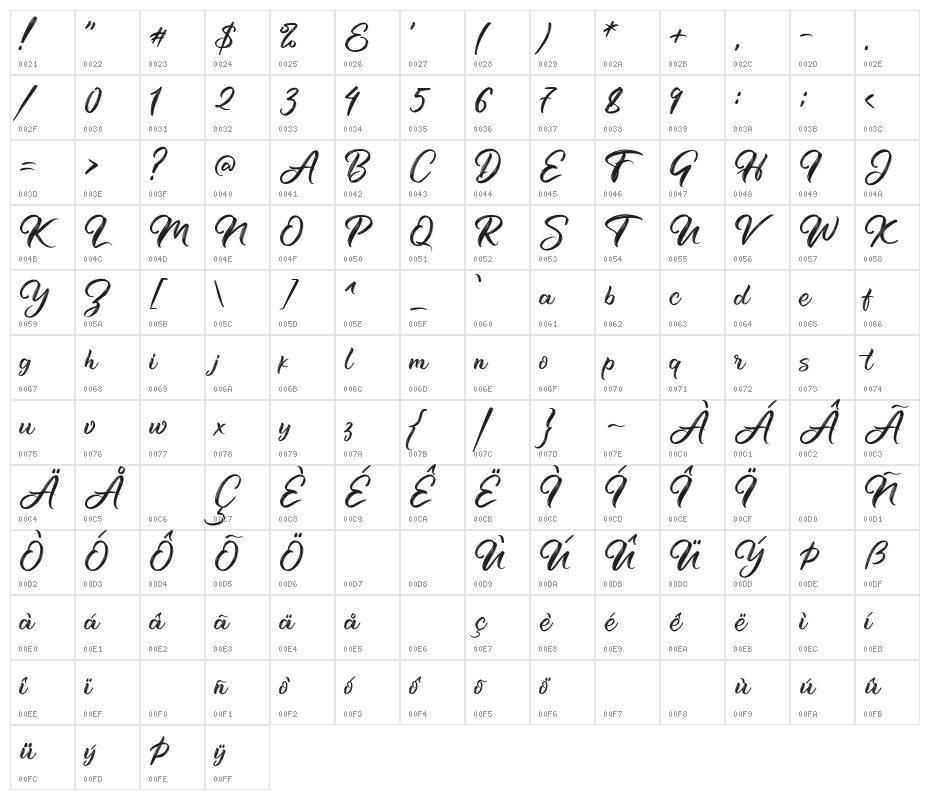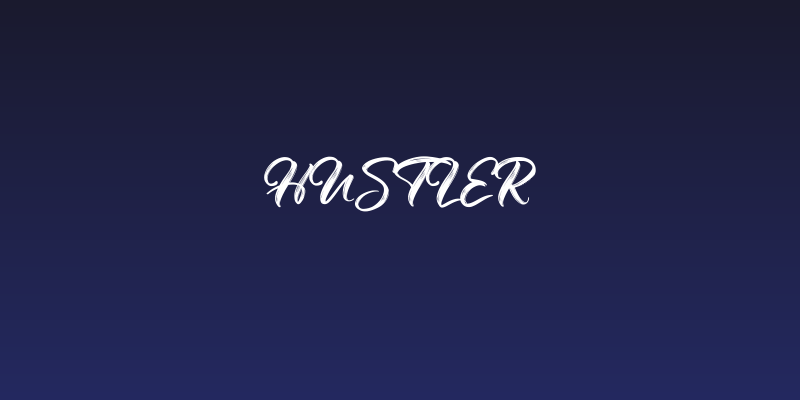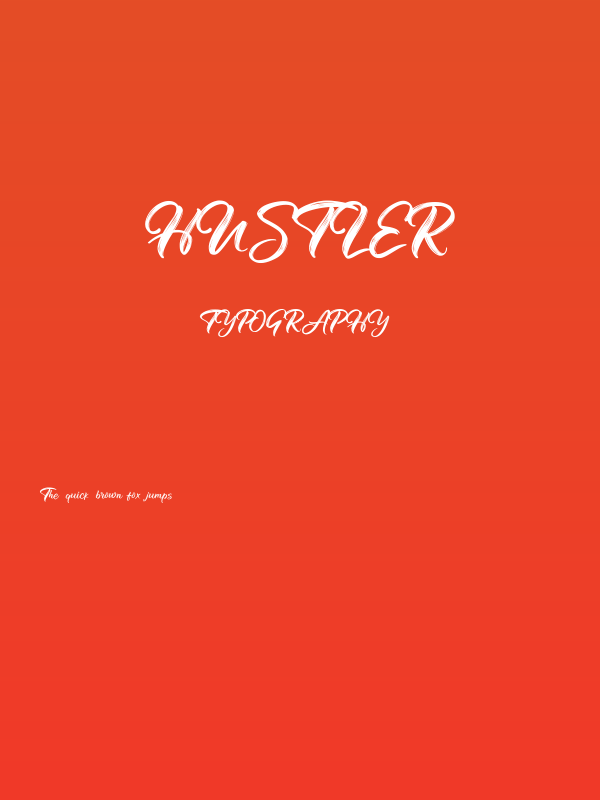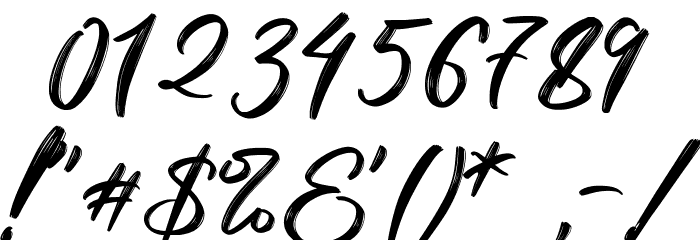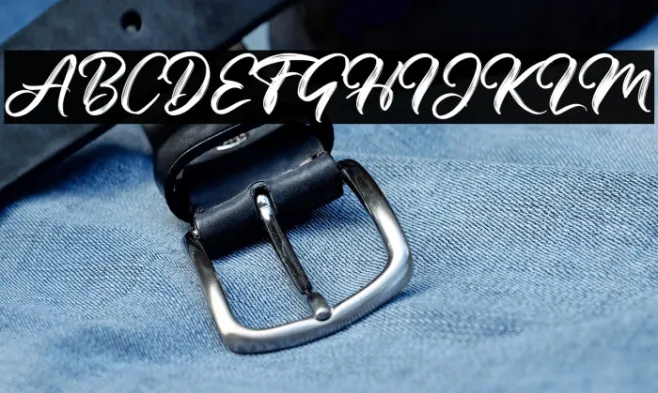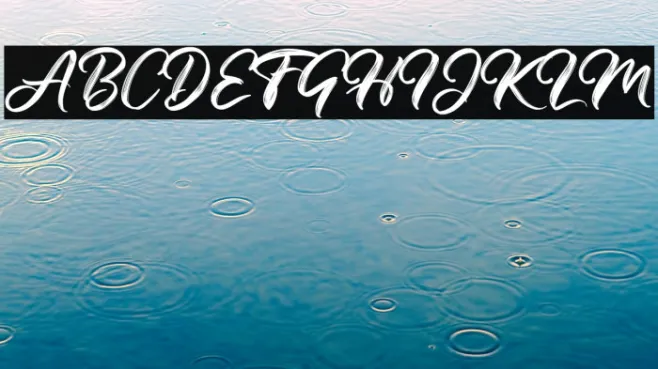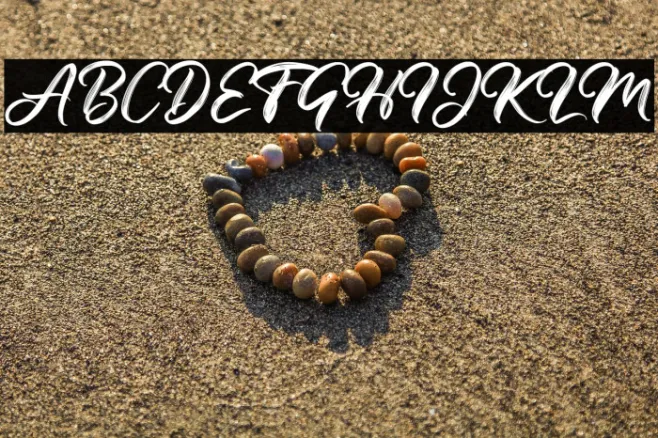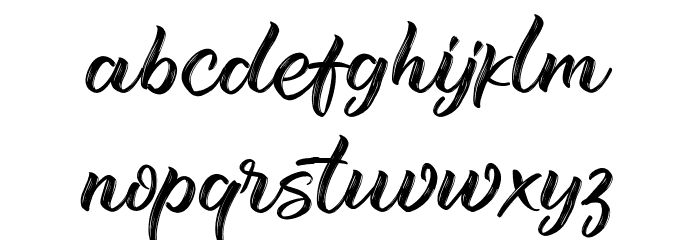
Hustler Font
Hustler Description
This font features a bold and dynamic script style with a strong, flowing character. The strokes are thick and expressive, giving it a sense of movement and energy. The uppercase letters are elegantly curved, while the lowercase letters maintain a consistent flow, enhancing readability. Numbers and special characters are crafted with the same boldness, ensuring a cohesive look across all text. The font's design is both modern and artistic, making it suitable for creative projects that require a touch of flair.
| Proposed Projects | Ideal for branding, logos, posters, and invitations where a bold, artistic touch is desired. |